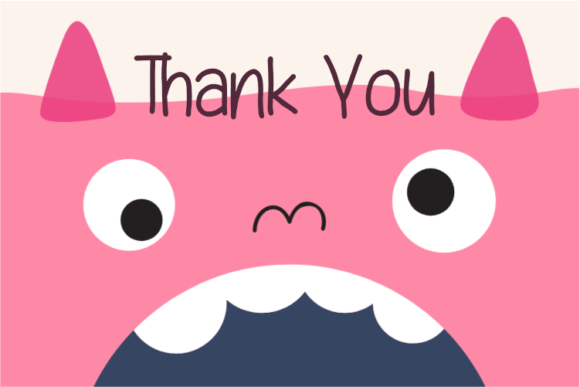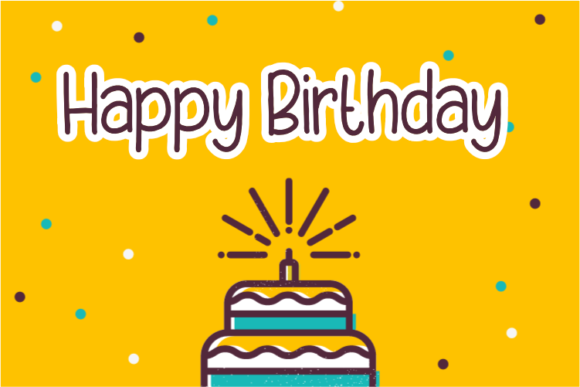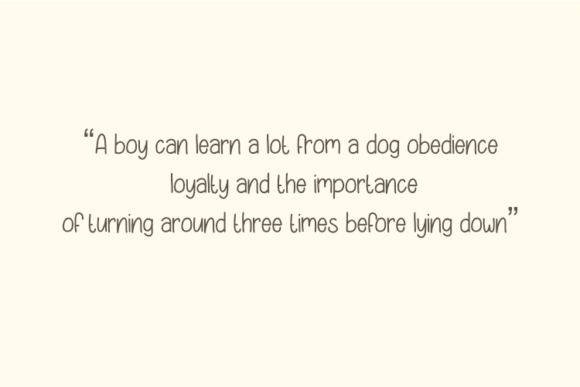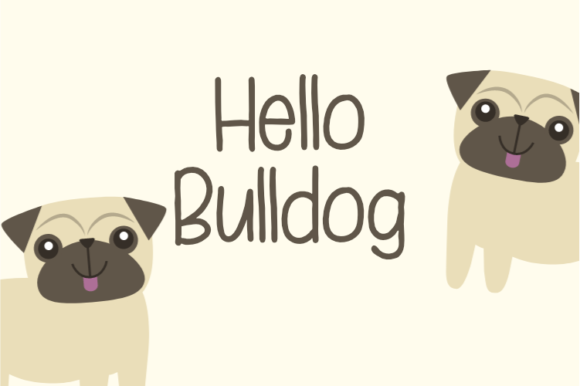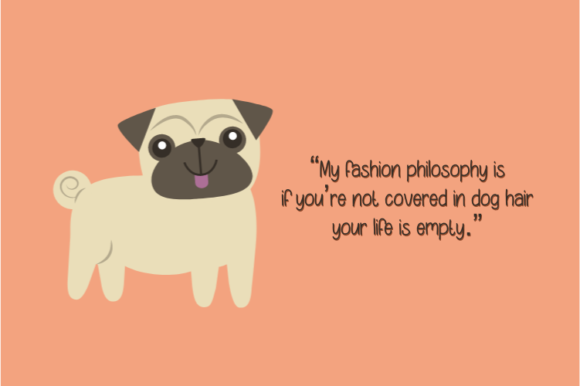
Introduction to Heylie Font
Heylie is a simple and neat handwritten font.
No matter the topic, this font will be an incredibly asset to your fontsโ library, as it has the potential to elevate any creation .